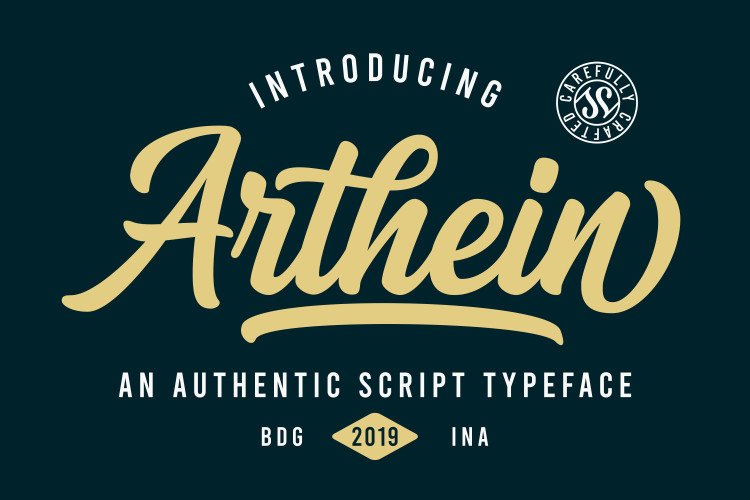
Arthein Bold Script Font
This is a bold script typeface which is simple yet casual. Great choice for your special moment or special project, pair perfectly with another font style. Introducing Arthein Font!  It is design and shared by Sibelumpagi Studio. It’s a bold script typeface with the authentic hand-lettering touch. It included opentype features with PUA encoded such as altrnates and ligatures. Arthein would be good for branding, logotype, poster, badge, book cover, invitation, tshirt design, packaging and many more.